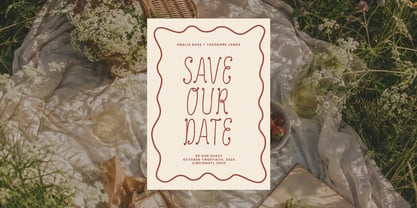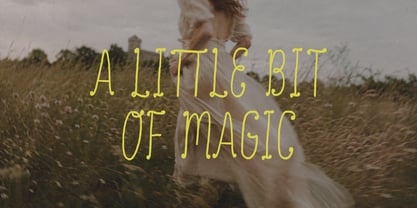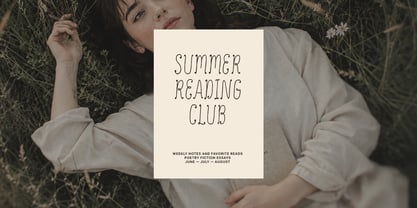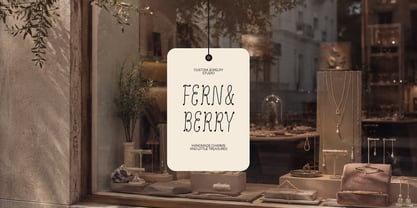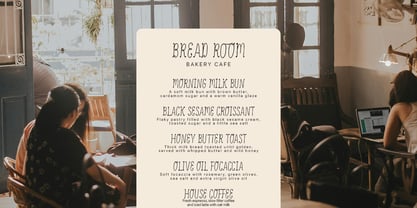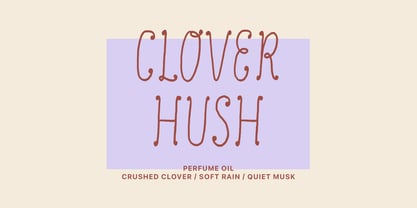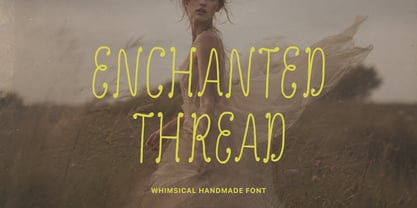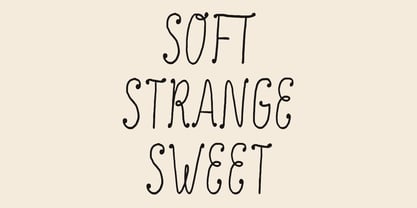
Enchanted Thread
Enchanted Thread is a whimsical handmade display font with tall, delicate letters and playful little curls. It has a soft fairytale feeling romantic, dreamy, slightly strange, and full of personality. Perfect for wedding stationery, save the dates, boutique branding, jewelry studios, perfume labels, book covers, poetry projects, café menus, packaging, logos, moodboards, and feminine editorial designs.
This font works beautifully when you want your design to feel gentle, feminine, nostalgic, and slightly enchanted. Its imperfect hand-drawn style adds warmth and personality, making it ideal for projects that need a soft but memorable visual voice.
Uppercase letters
Lowercase letters
Numbers
Multilingual support
Handmade whimsical style
Perfect for display use, logos, titles, invitations, and branding